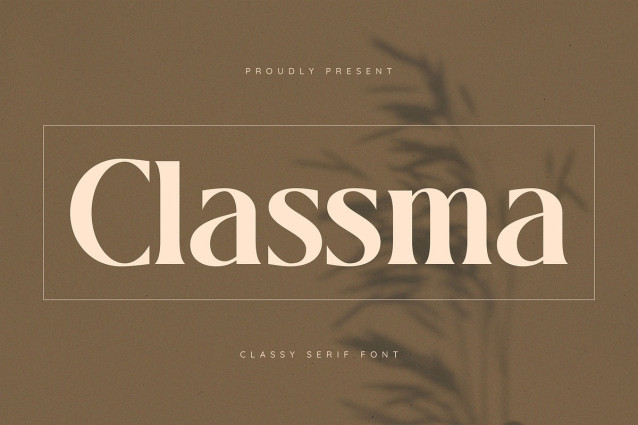
Classma Font
Classma Font, a high-contrast serif font designed to bring sophistication and clarity to your visual language. With its sharp serifs, elegant proportions, and modern flair, Classma offers the perfect balance between timeless tradition and contemporary aesthetics.
Classma is crafted for designers who seek a typeface with character—ideal for high-end branding, fashion editorials, luxury packaging, and premium web typography. Each letterform is carefully designed to convey elegance, while ensuring excellent readability across all platforms.